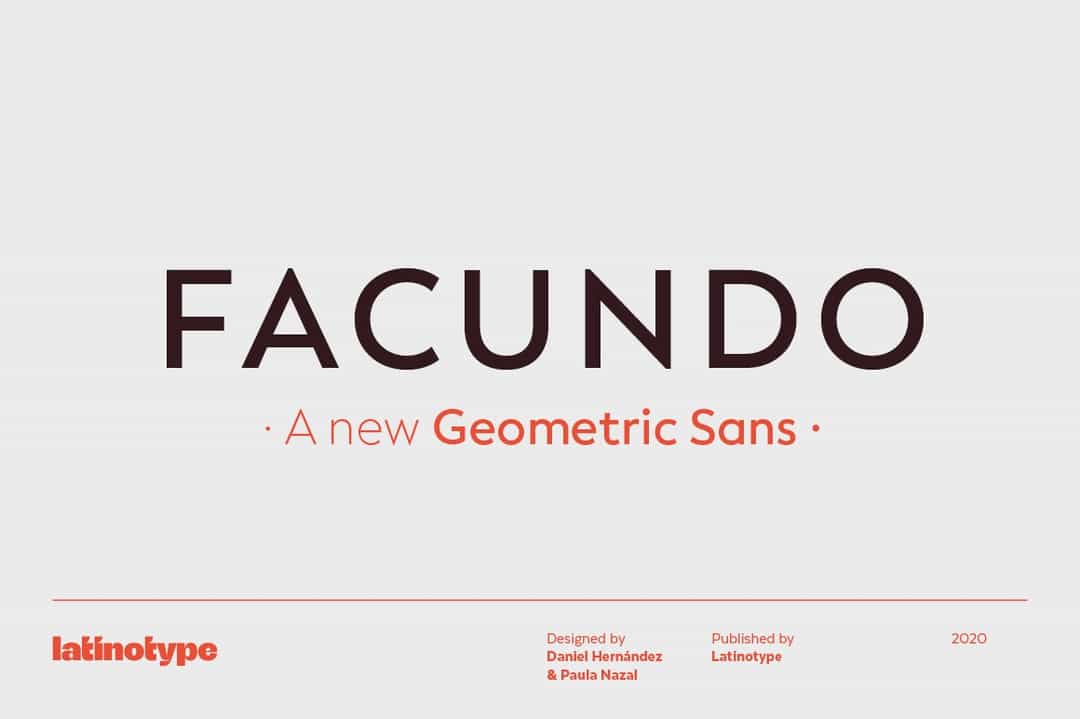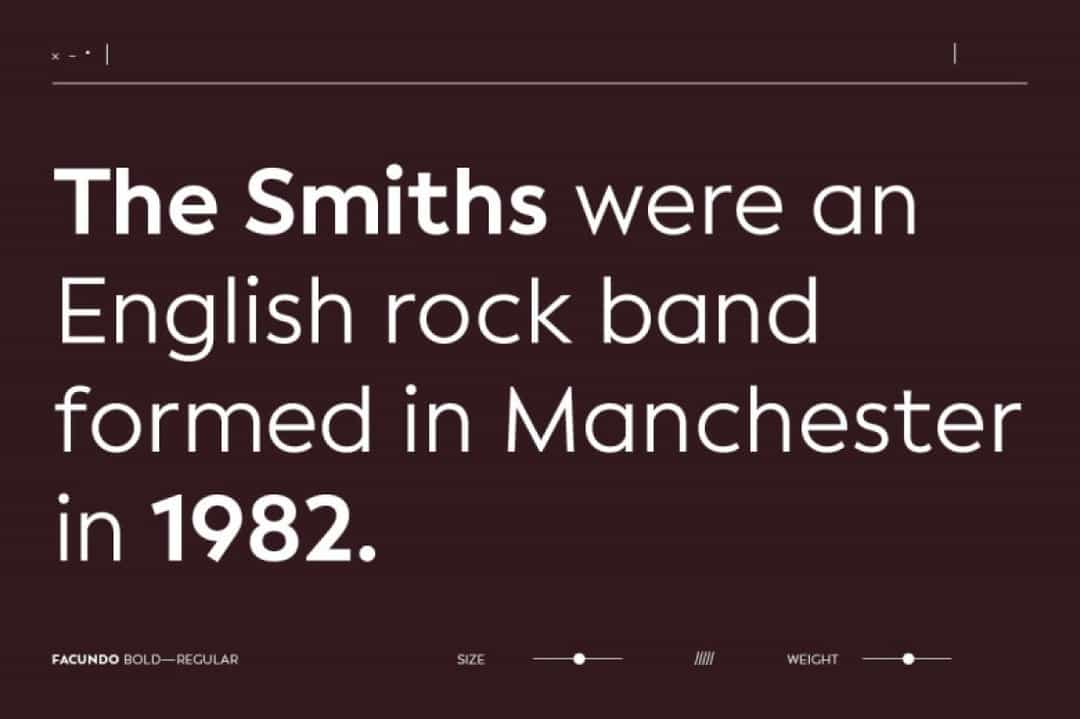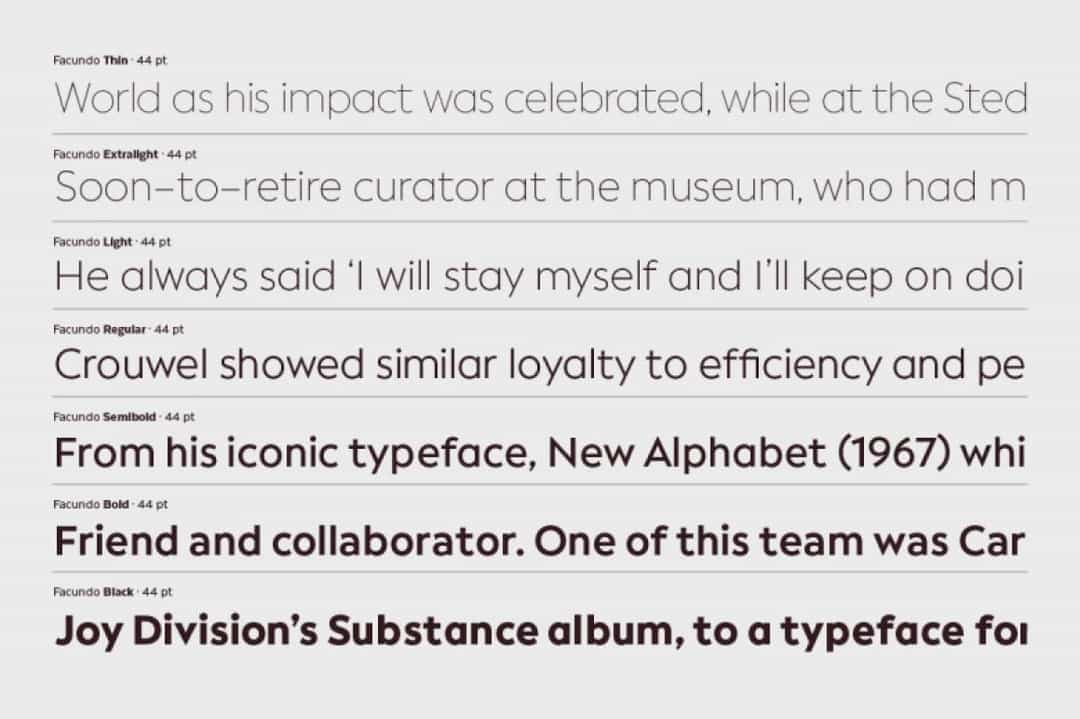
Discover Facundo Font Family, part of the Sans Serif collection—a versatile and unique font perfect for adding a personal touch to your projects. Download it for free and enjoy crafting designs with style, from invitations to social media posts. This font is available exclusively for personal use, giving you the freedom to create without limits. Unlock your creativity with Facundo Font Family today!
Facundo Sans Serif Font Family consists of basic geometric forms combined with trendier uppercase glyphs for an eye-catching result. Though Facundo might appear familiar at first glance, its modernity gives your designs a casual yet fresh and contemporary aesthetic that stands out from competitors. Available in 7 weights with matching italics it is suitable for corporate, brand identity or website design projects alike.